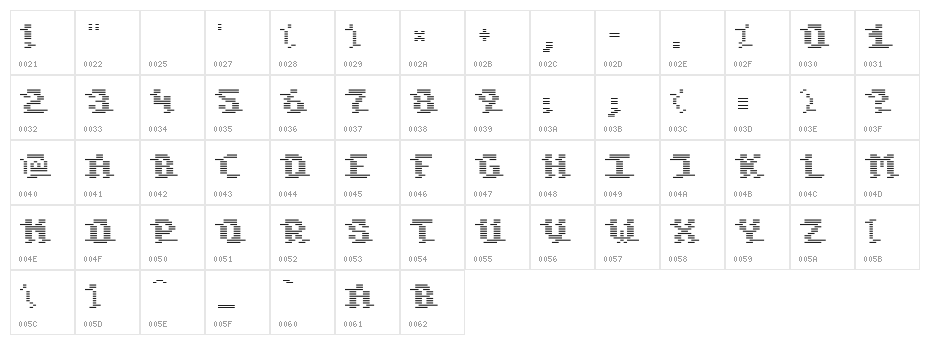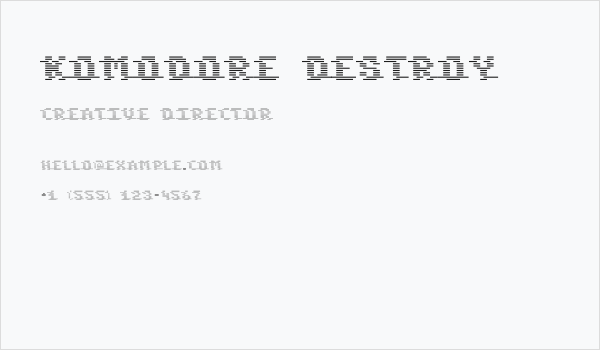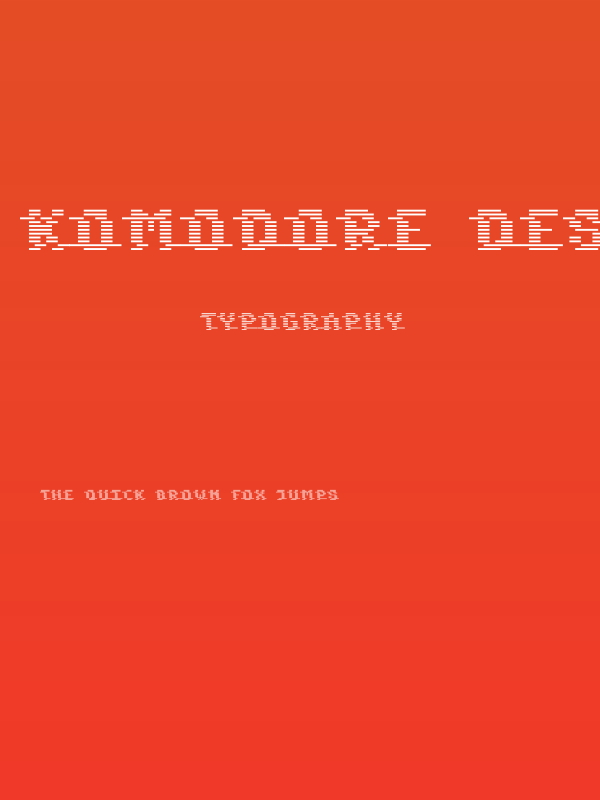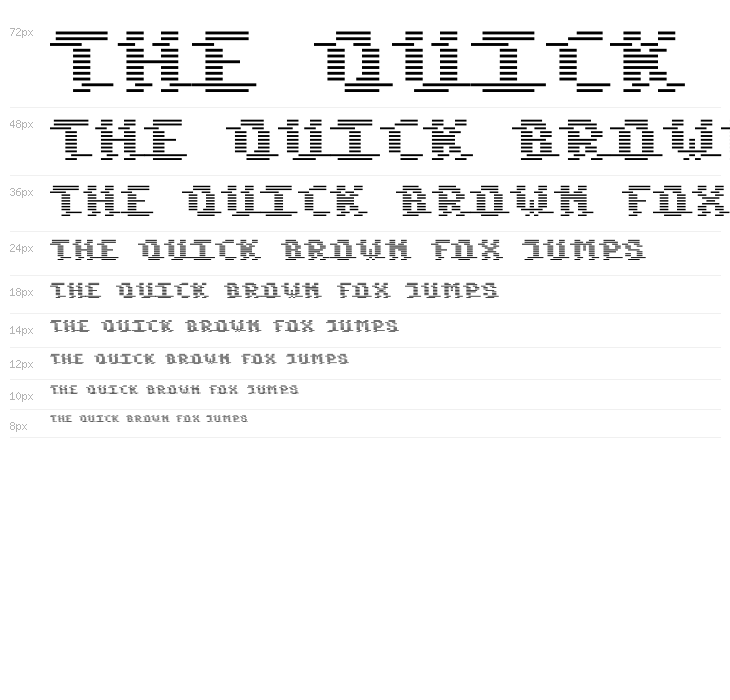
Komodore Destroy Font
Komodore Destroy Description
This font features a unique, pixelated design reminiscent of early computer graphics and retro video games. Each character is constructed with horizontal lines, giving it a distinct digital appearance. The uppercase and lowercase letters maintain a consistent style, with a blocky, geometric form that emphasizes a sense of nostalgia. Numbers and special characters follow the same design principles, ensuring uniformity across all glyphs. The font's aesthetic is both playful and technical, making it suitable for projects that aim to evoke a sense of the past while maintaining a modern edge.
| Overall Style | Retro, Digital |
| Proposed Projects | Ideal for video game graphics, retro-themed posters, digital art projects, and tech-related branding. |